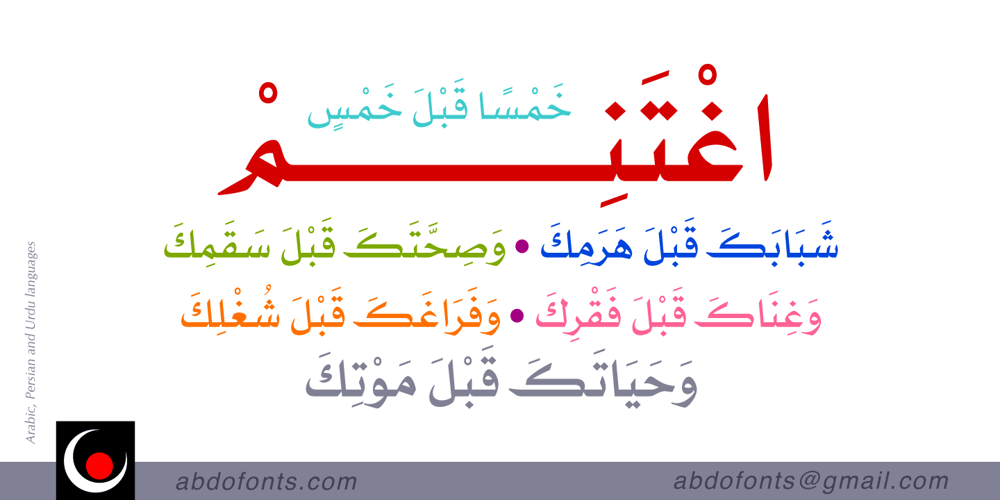
Abdo Line Font Family was designed by Abdulsamie Rajab and published by Abdo Fonts. Abdo Line contains 6 styles and family package options. Abdo Line is a simple Naskh font for books and magazines. Accurate design and clarity of reading and writing space-saving, it comes in sixth weights: Thin, Light, Regular, Bold, Heavy and Black. This is an OpenType Font supporting Arabic, Persian, Urdu Languages and compatible with the various operation systems and modern software. This font also contains many of Stylistic Sets, Ligatures and Justification Alternatives.